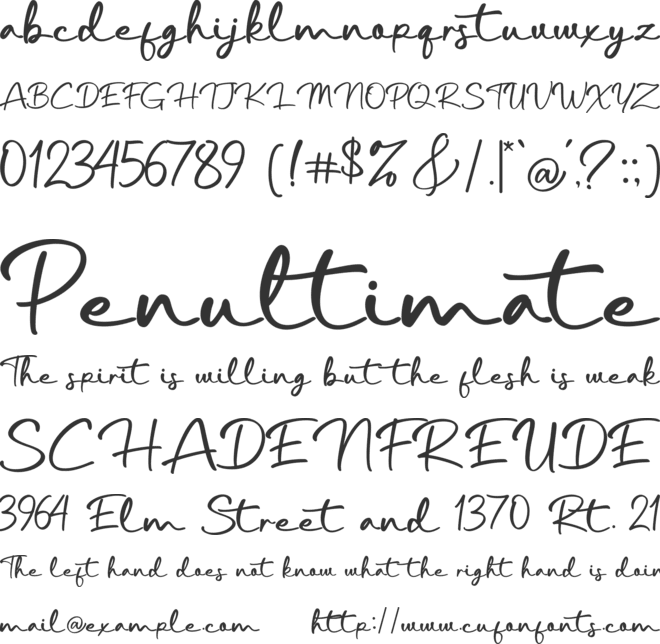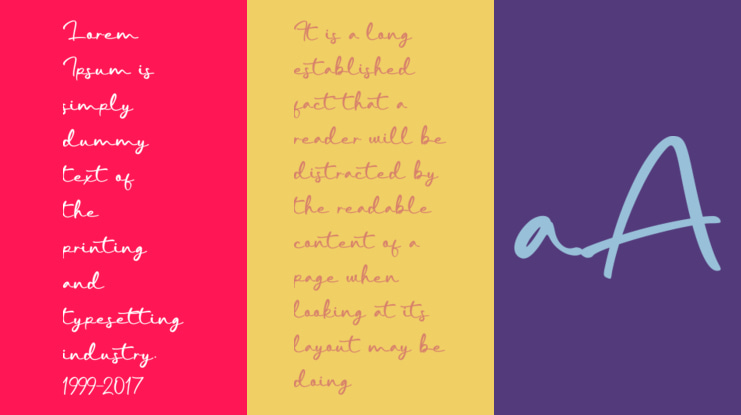
Sailma Font
Sailma handwritten font crafted with authentic Brush for Natural & Casual touch for everything from branding and social media to invitations and packaging.